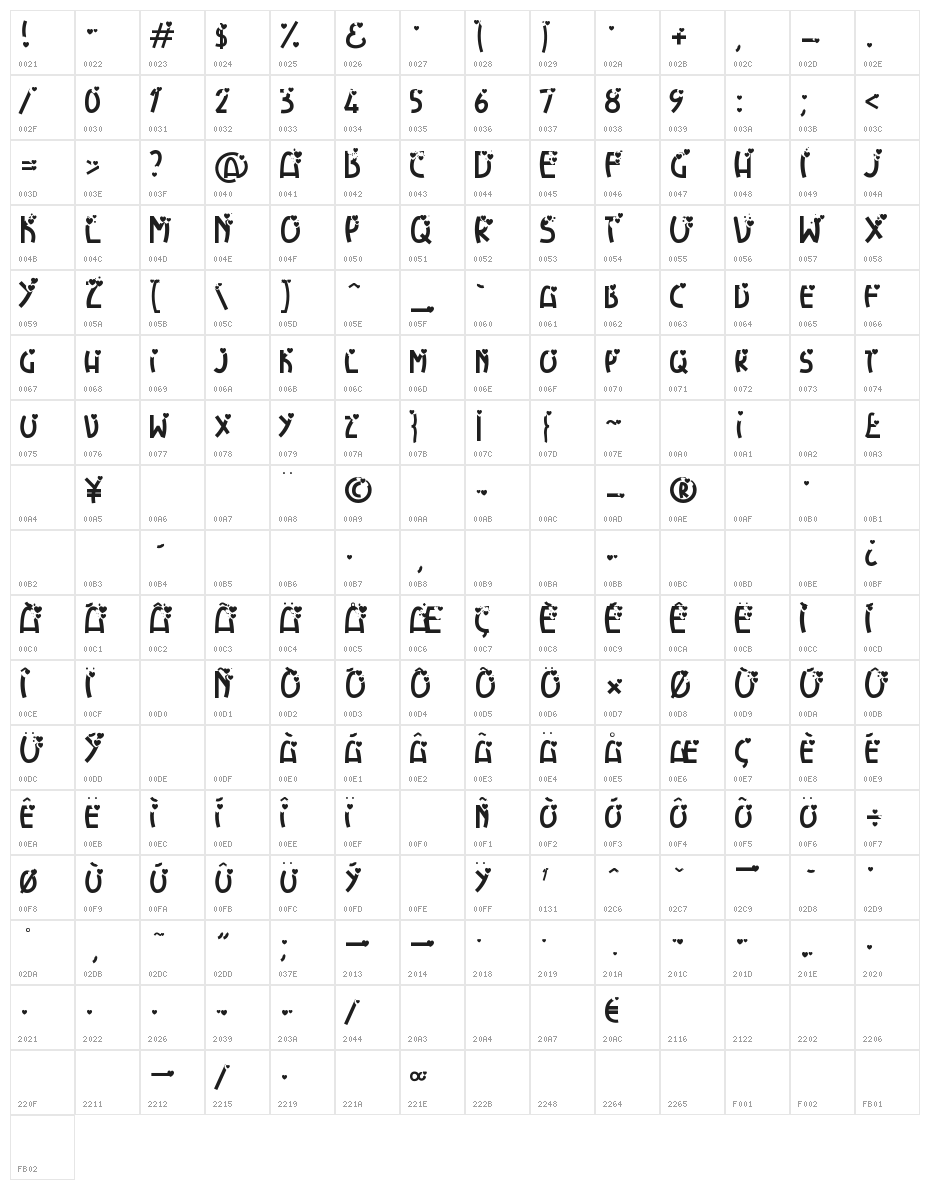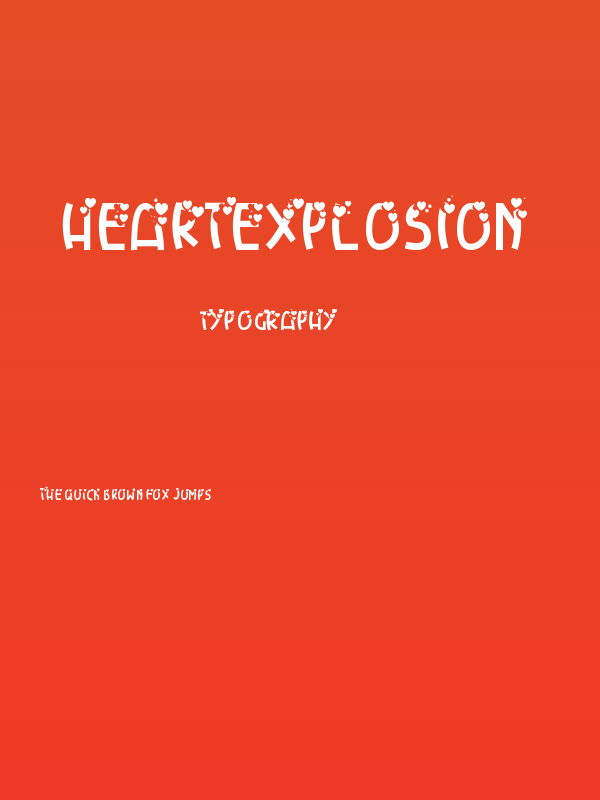
HeartExplosion Font
HeartExplosion Description
This playful and decorative font features a unique design where each character is adorned with heart shapes, adding a whimsical and romantic touch. The letters are bold and slightly condensed, with a consistent stroke width that gives them a sturdy appearance. The heart motifs are integrated seamlessly into the upper part of each character, creating a cohesive and charming aesthetic. This font is perfect for projects that aim to convey love, joy, or a sense of fun, making it ideal for Valentine's Day themes, wedding invitations, or playful branding. The overall style is modern with a decorative flair, ensuring it stands out in any design.
| Proposed Projects | Ideal for Valentine's Day cards, wedding invitations, playful branding, and romantic-themed projects. |